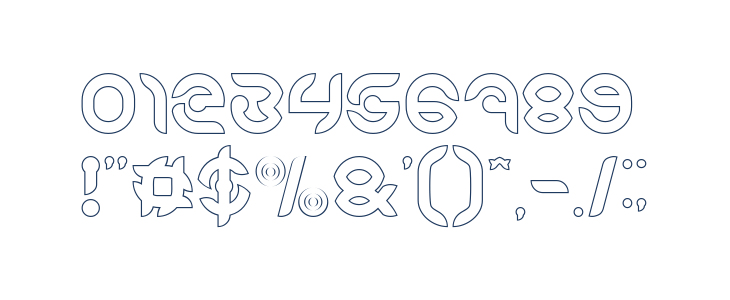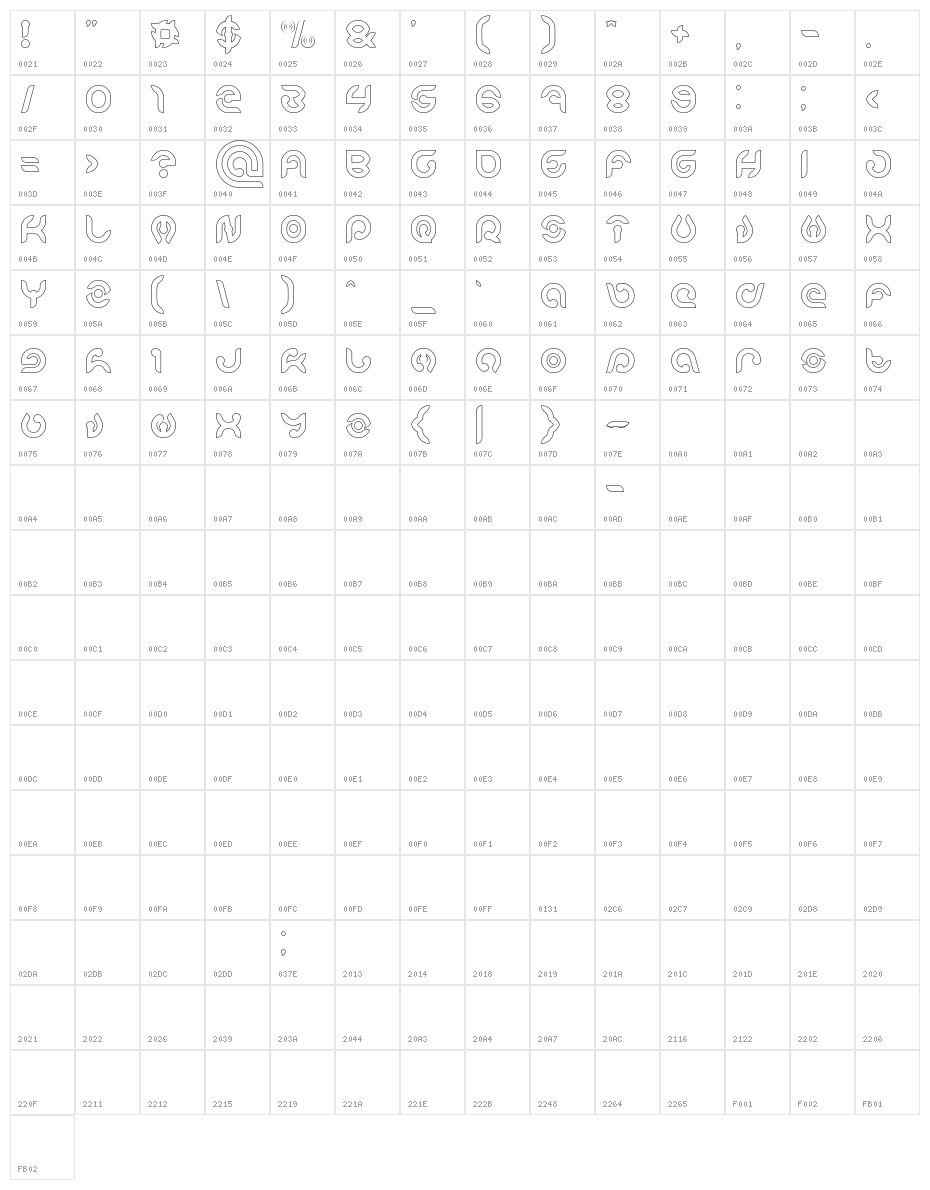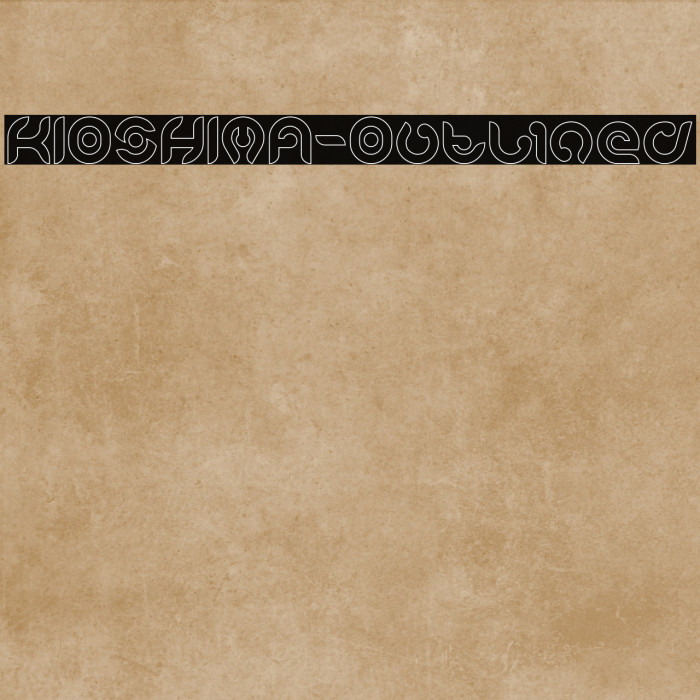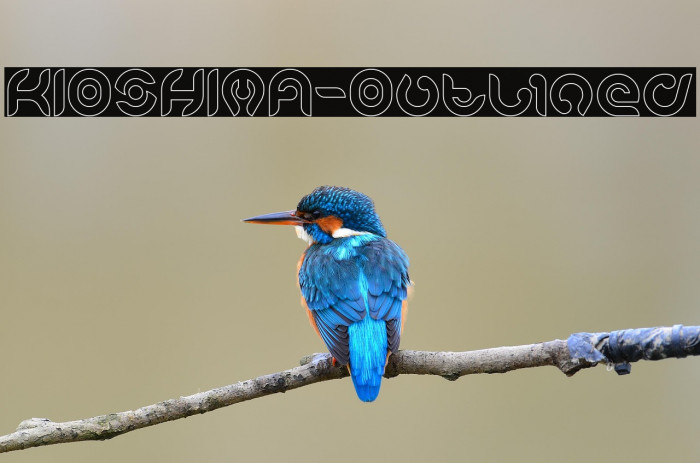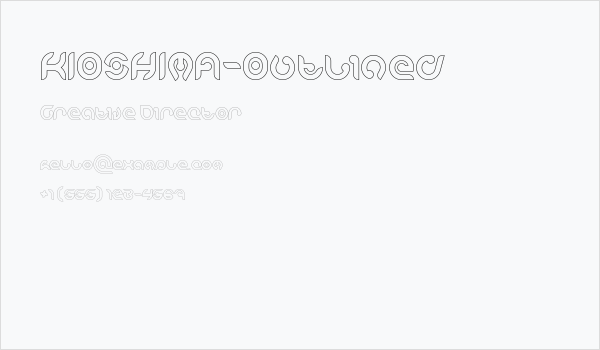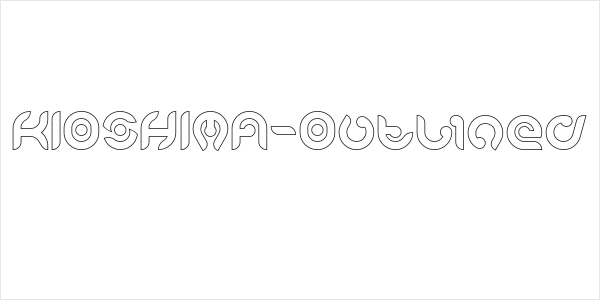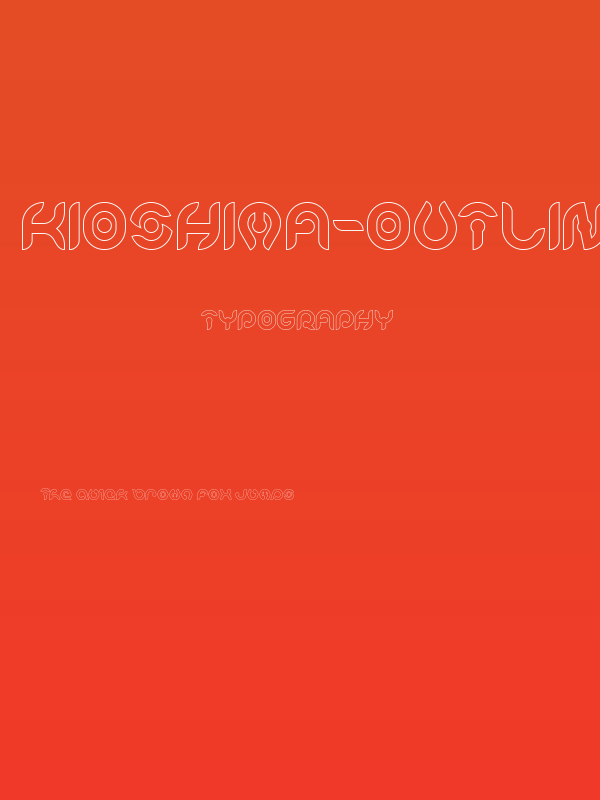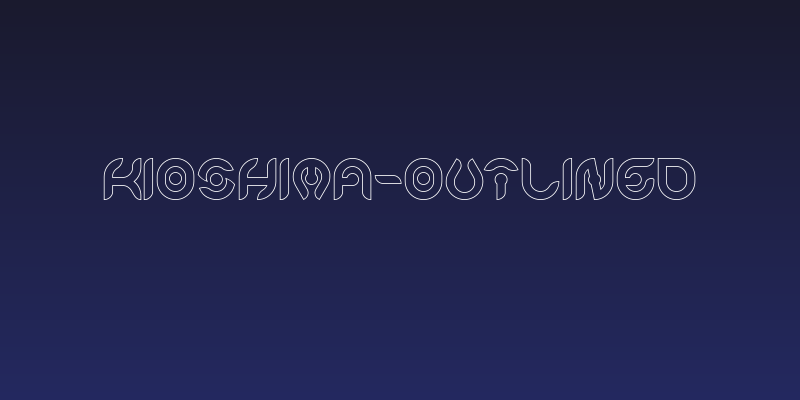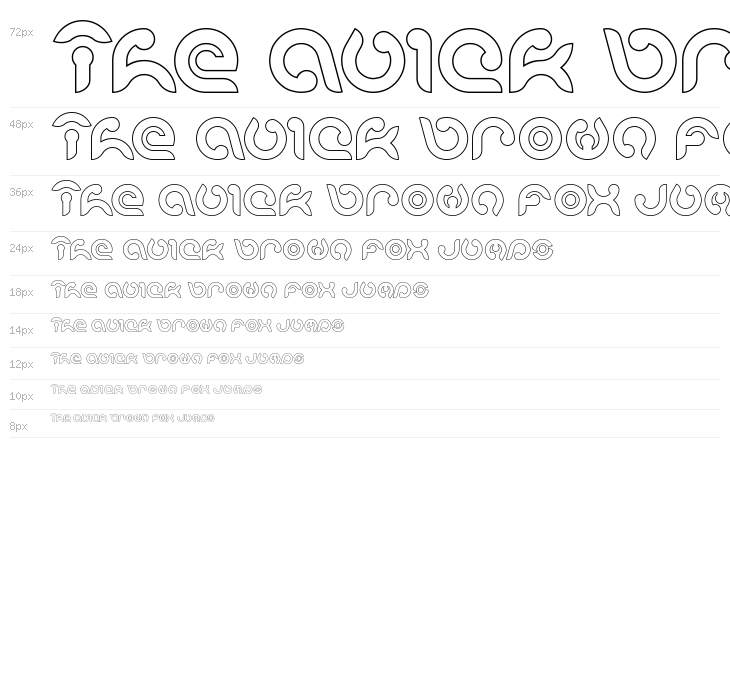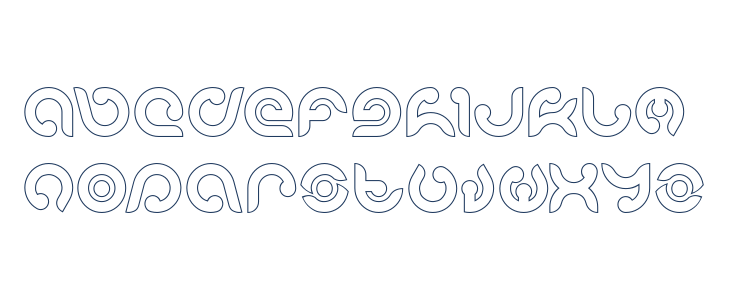
KIOSHIMA-Outlined Font
KIOSHIMA-Outlined Description
This font features a unique outlined style with a futuristic and geometric appearance. The characters are composed of bold, rounded lines that form distinct shapes, giving it a modern and innovative look. The uppercase and lowercase letters maintain a consistent design, with smooth curves and clean edges. Numbers and special characters follow the same aesthetic, ensuring uniformity across all glyphs. This font's outlined nature makes it stand out, ideal for eye-catching designs.